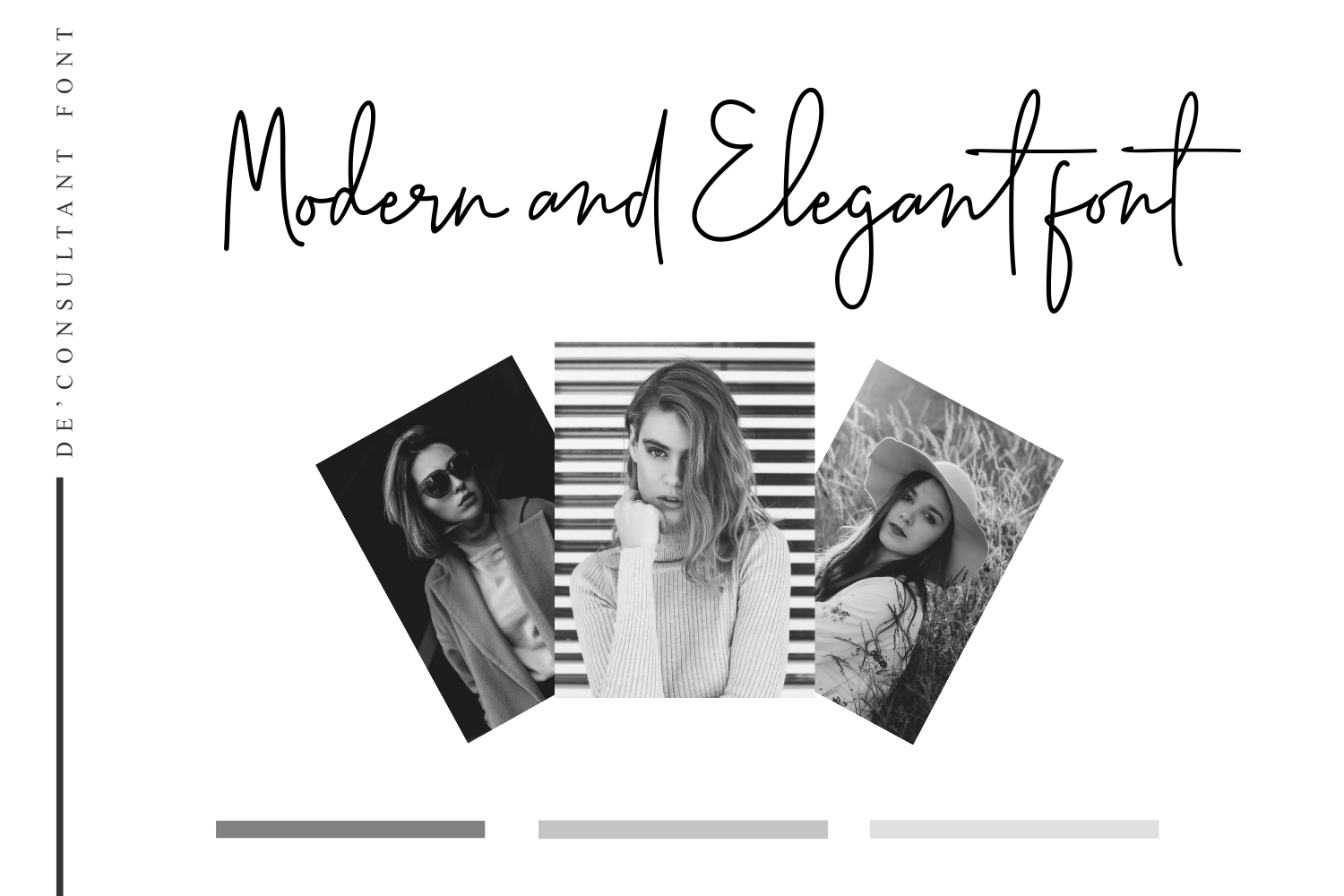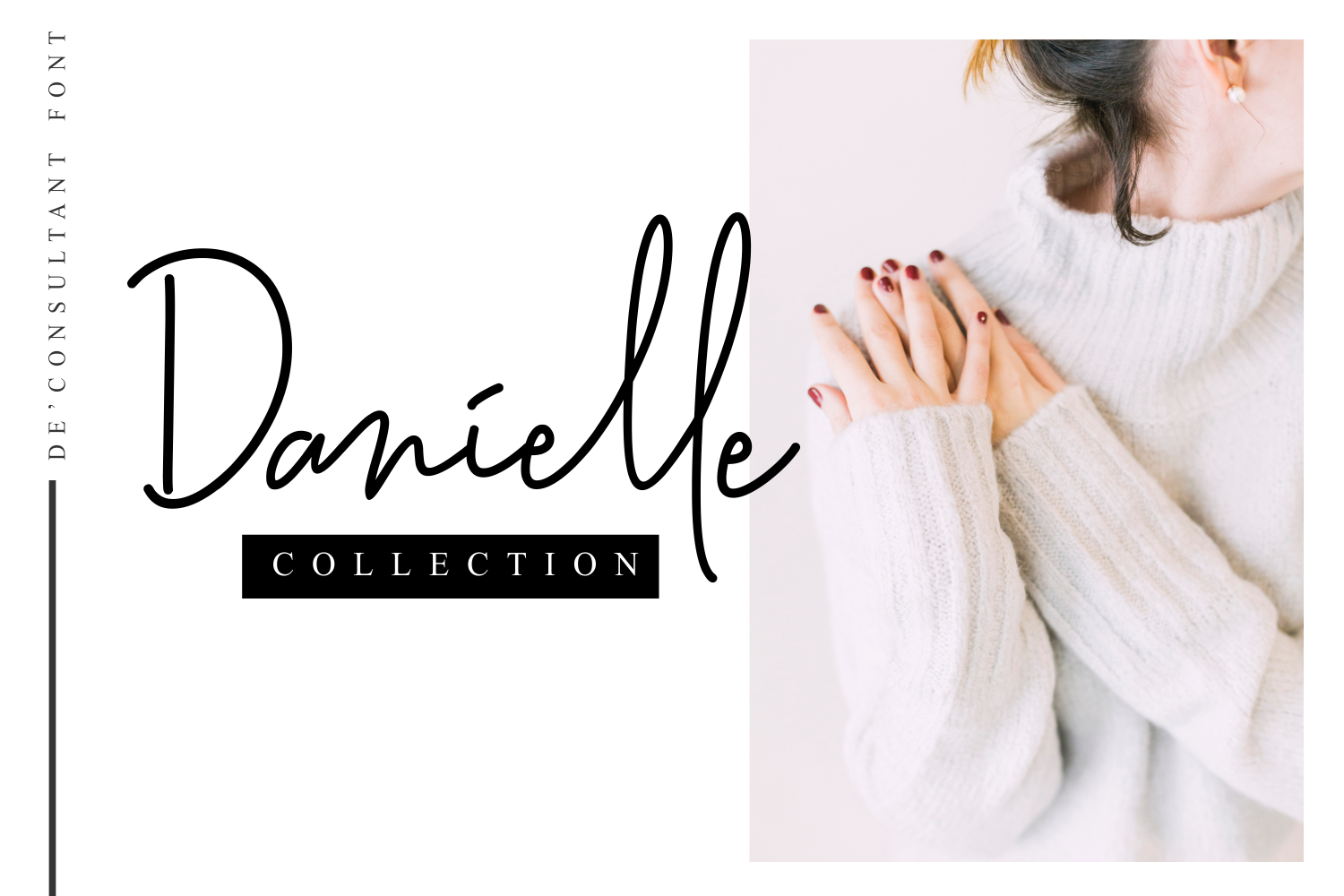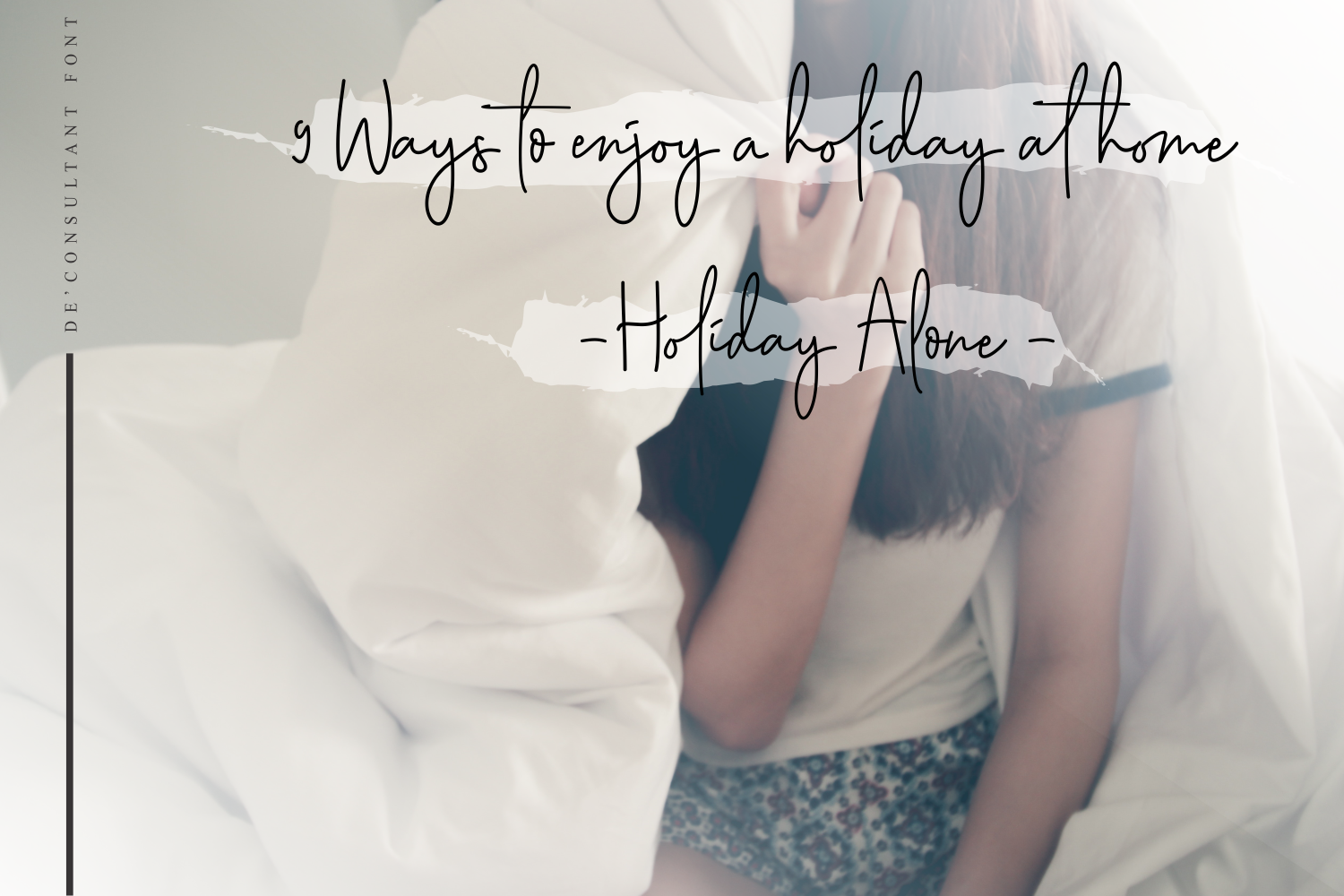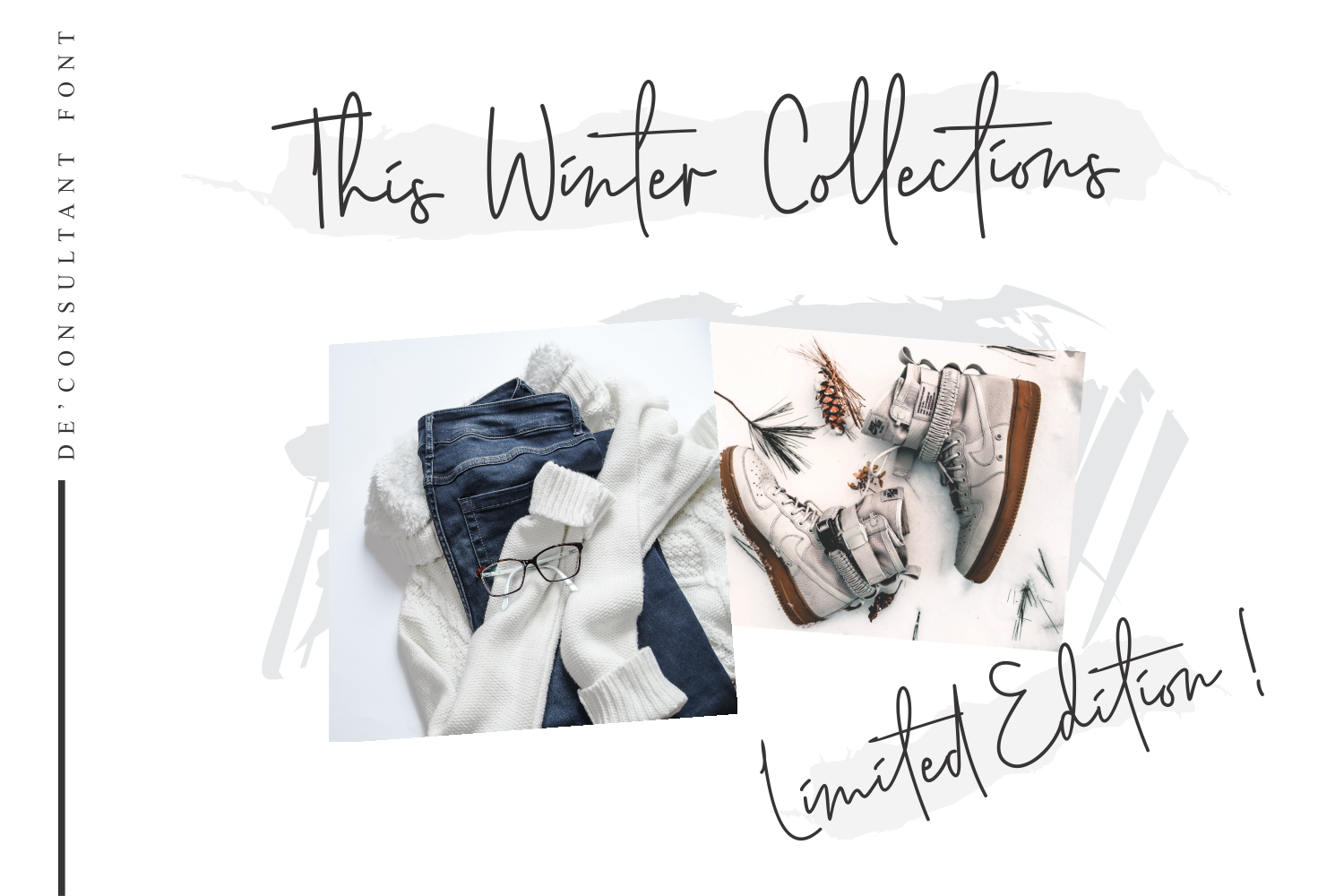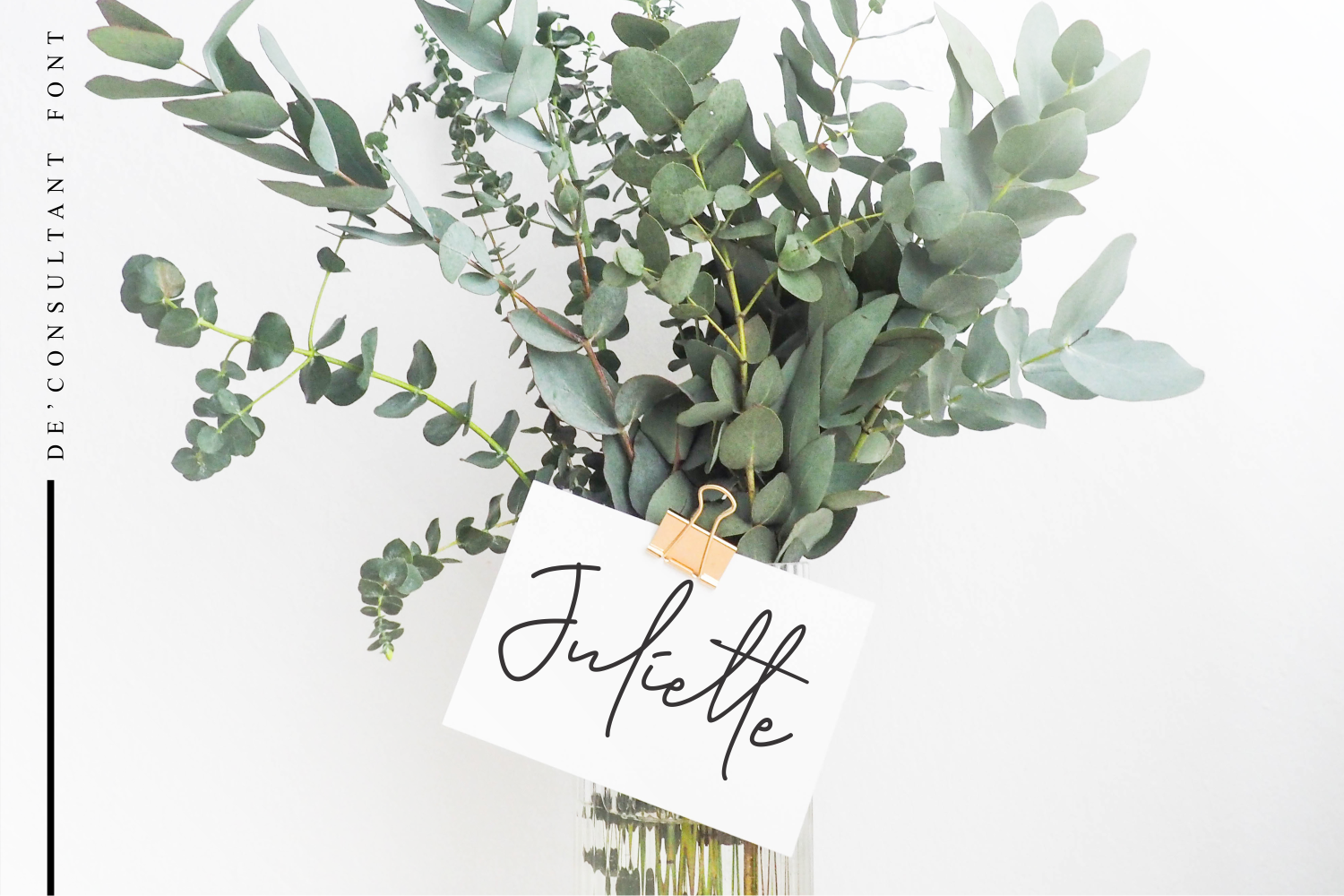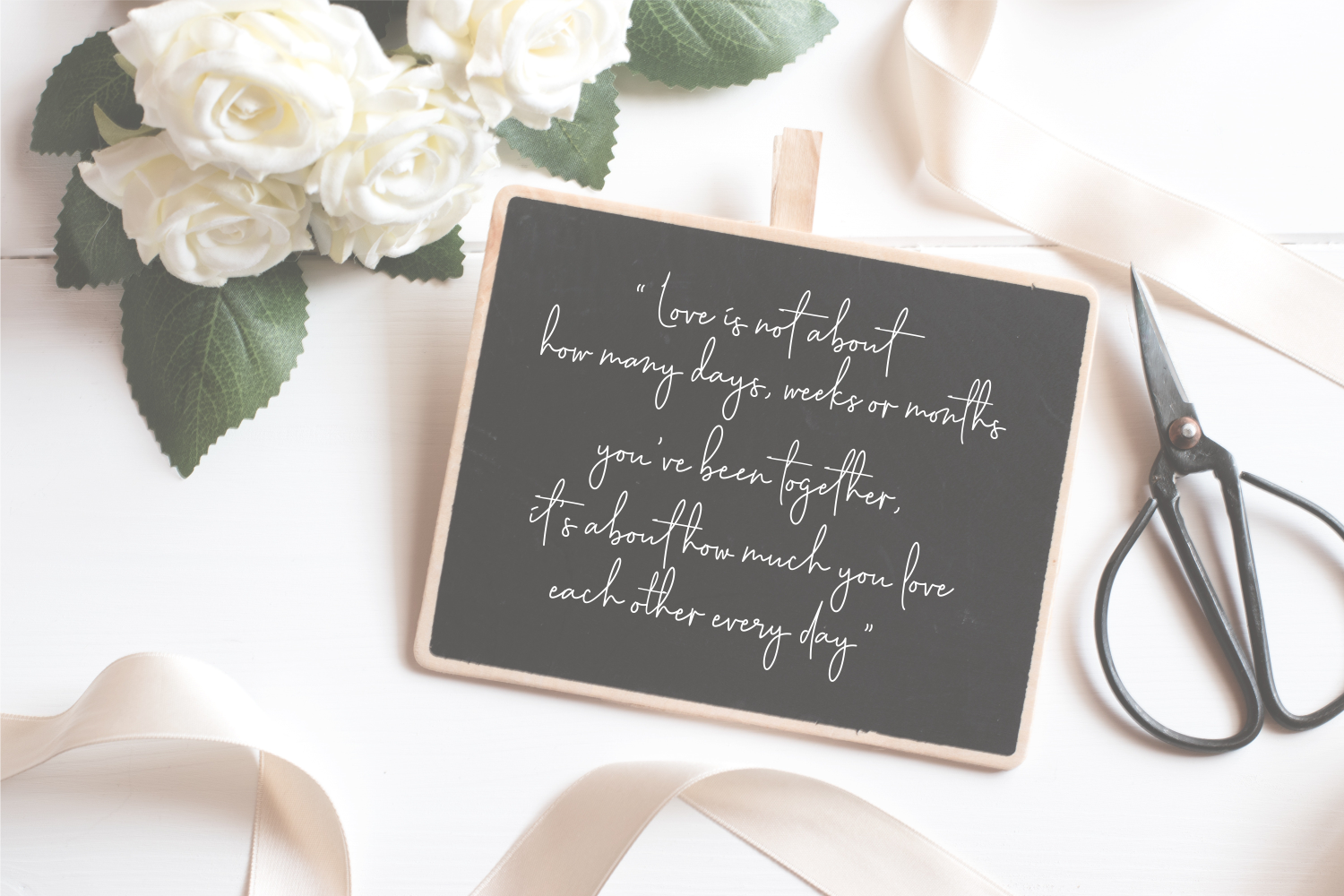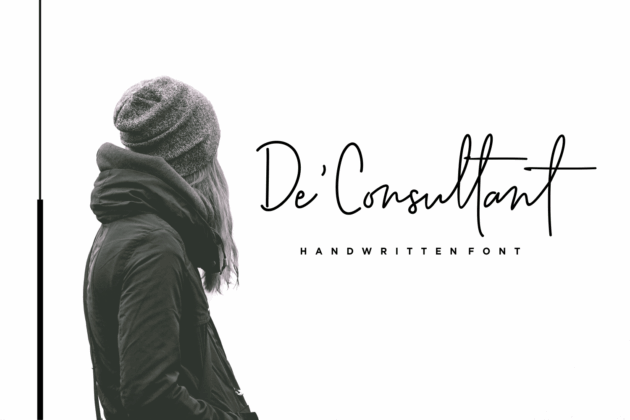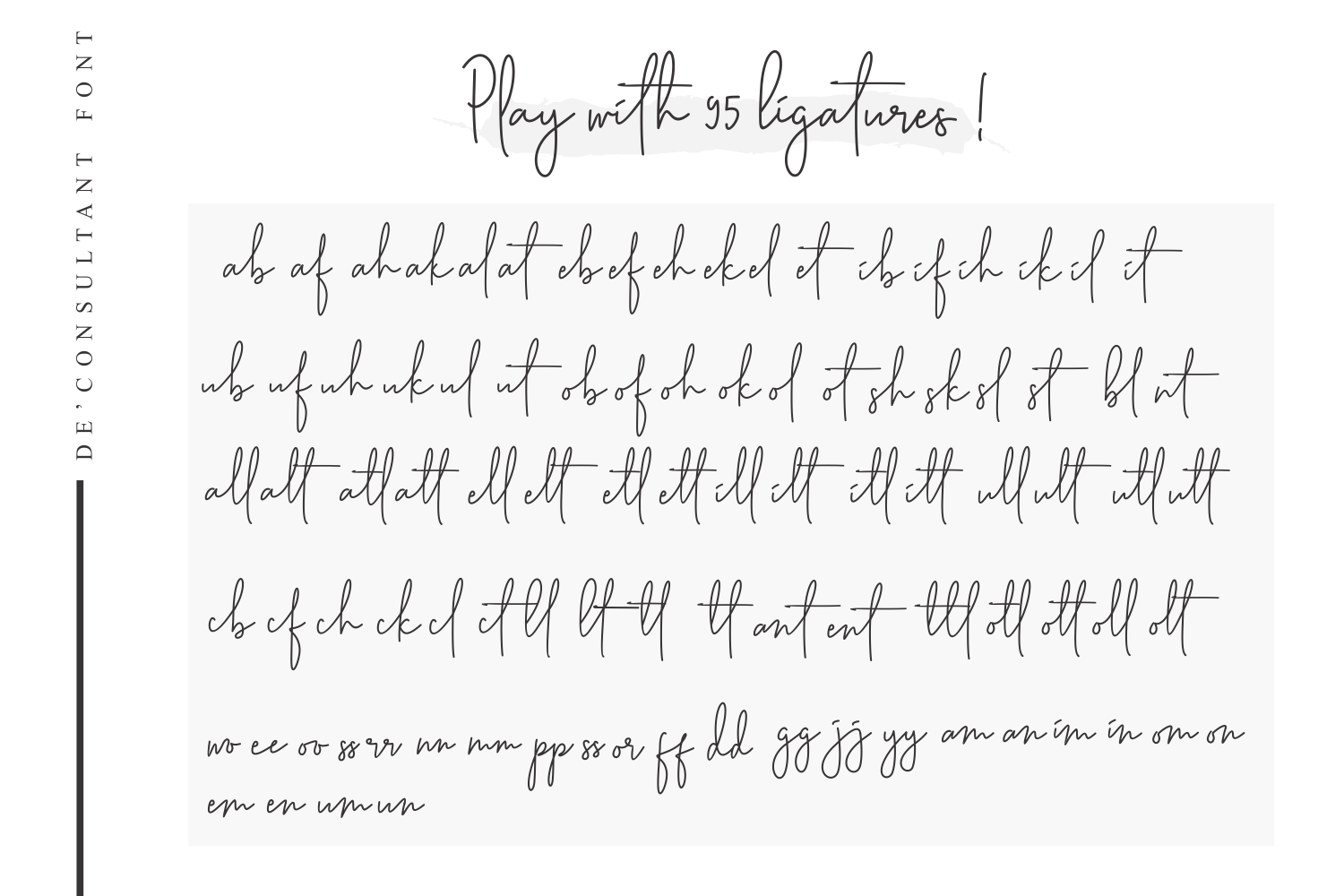
De”Consultant Font
About De’Consultant Font
The De’Consultant font download offers a modern and stylish script designed to elevate your creative projects, especially in the fashion and editorial world. Crafted with a signature flair, this font brings an elegant yet contemporary feel that perfectly simulates the look of hand-lettered typography. Whether you’re designing magazine covers, branding materials, or editorial layouts, the De’Consultant font is a versatile choice that stands out.
This font includes a complete set of characters along with beautifully crafted ligatures. These ligatures enhance the fluidity of the text, allowing designers to create authentic hand-drawn effects with ease. When you download the De’Consultant font, you get access to every essential glyph needed for expressive and natural typography. The script’s balance of readability and artistic style makes it perfect for logos, headlines, and fashion-forward editorial designs.
Why Choose De’Consultant Font?
When you opt for the De’Consultant font download, you are choosing a font that embodies modernity and fashion sophistication. The font’s unique character set is carefully designed to mimic the flow and charm of real handwriting. This makes it ideal not only for high-end fashion brands but also for creative agencies and editorial projects seeking a fresh and stylish look.
The versatility of the De’Consultant font allows you to use it across various mediums, from digital designs and social media graphics to printed magazines and promotional materials. Its signature style adds a personalized touch that helps your designs speak with authenticity and elegance.
Features of De’Consultant Font
• Full character set: Includes uppercase and lowercase letters, numbers, punctuation, and special characters.
• Custom ligatures: Smooth connections between letters to simulate real handwriting.
• Fashion-forward style: Perfect for editorial layouts, branding, and creative projects.
• High readability: Despite its artistic flair, the font remains clear and easy to read.
• Multi-purpose use: Suitable for print and digital applications.
Final Thoughts on De’Consultant Font Download
If you want a modern, elegant script that stands out, the De’Consultant font download is an excellent choice. Its signature style and extensive character set make it a valuable asset for any fashion or editorial designer. Don’t miss the chance to elevate your projects with a font that perfectly blends artistic flair with readability. Download De’Consultant font today and bring a hand-crafted feel to your creative work.